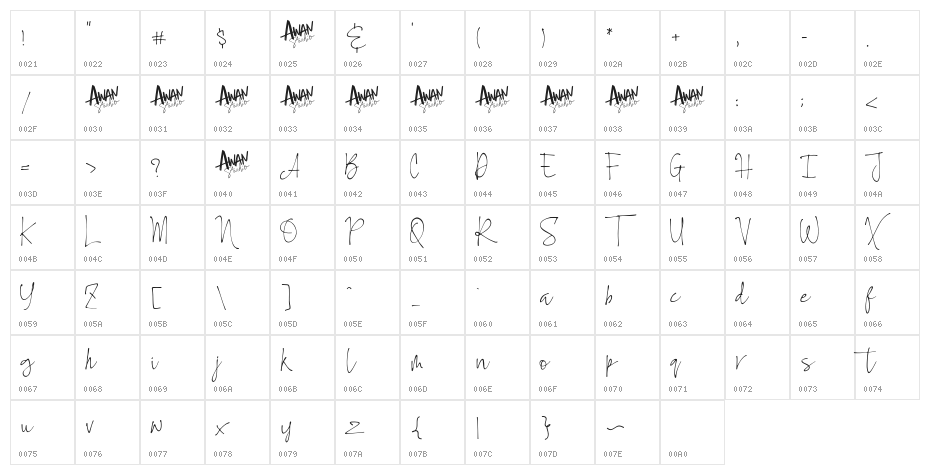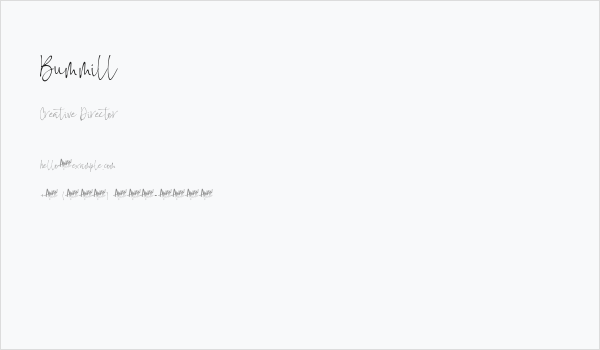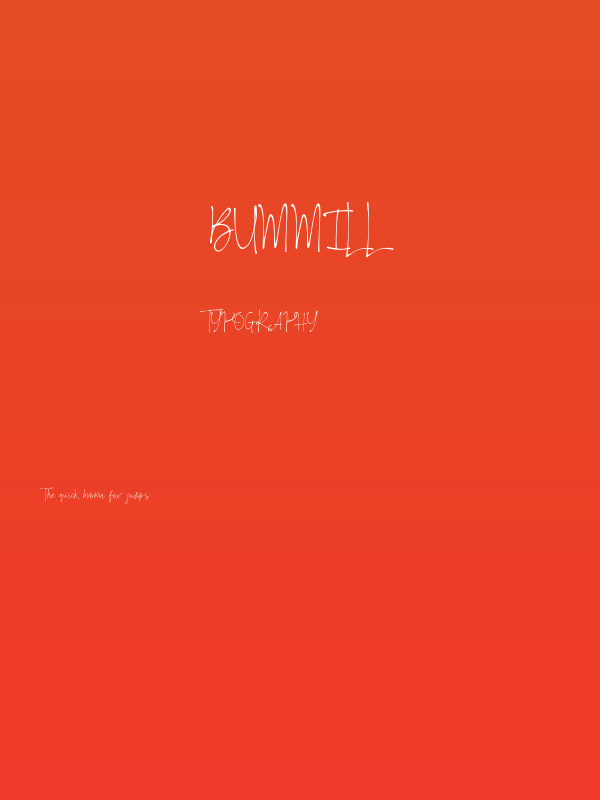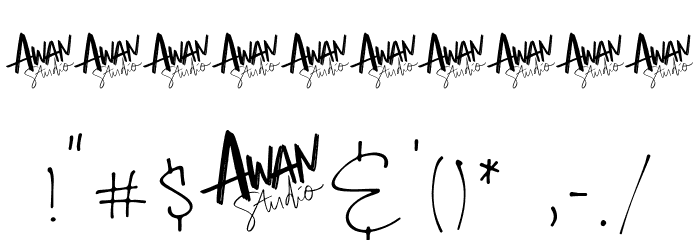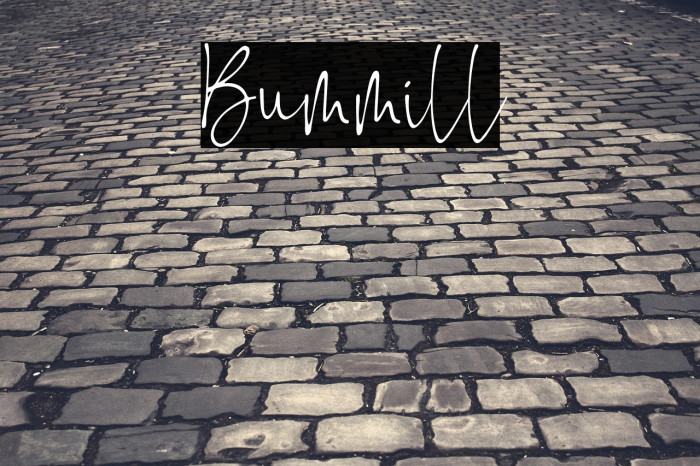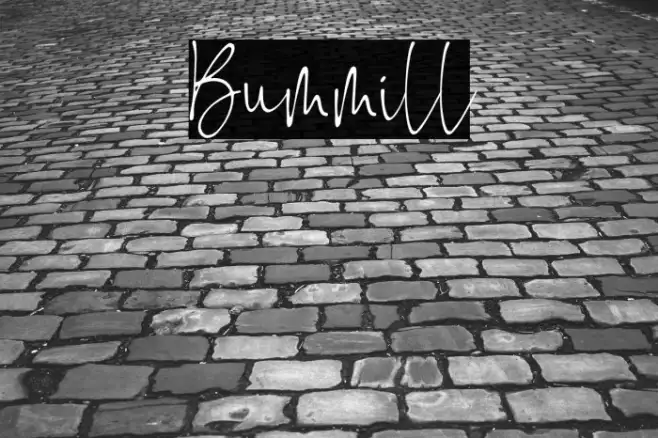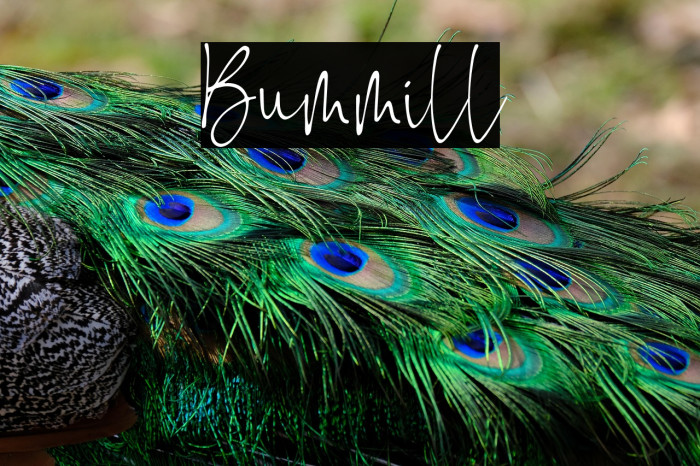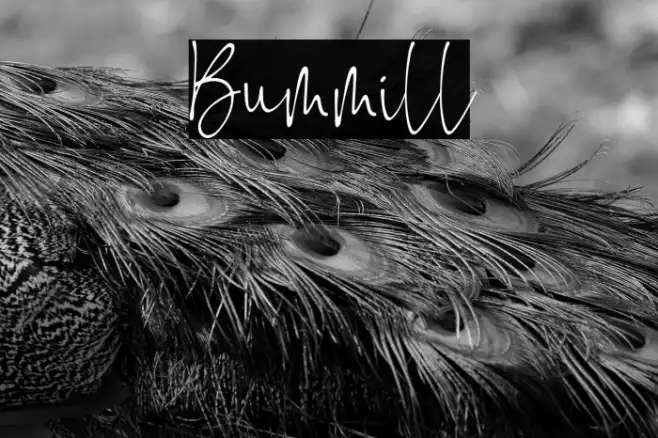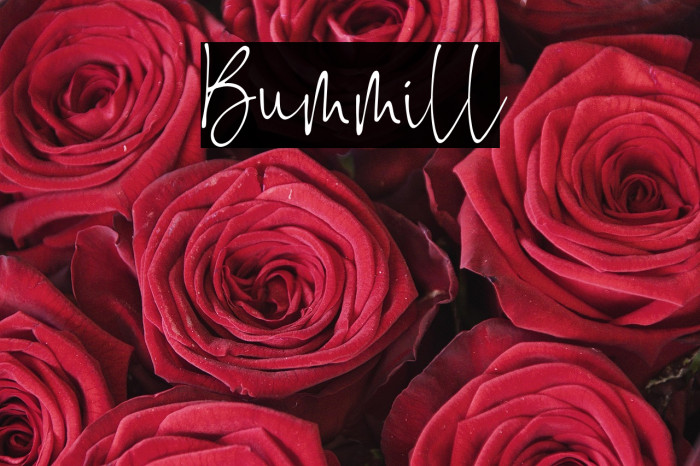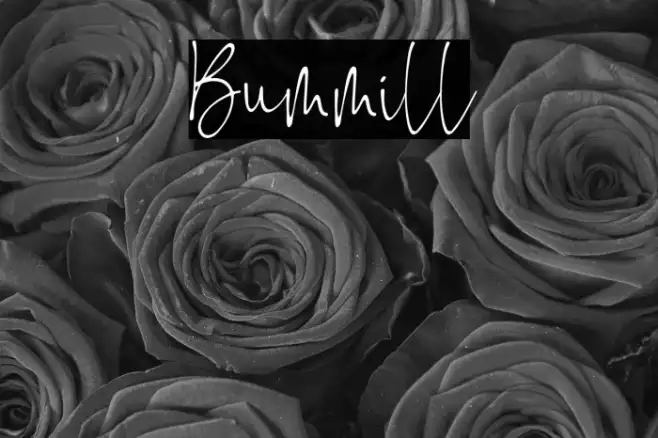
Bummill Font
Bummill Description
This font features a playful and casual handwritten style, characterized by its loose and flowing strokes. The uppercase letters are tall and slightly irregular, giving a sense of spontaneity and creativity. The lowercase letters maintain the same whimsical feel, with some letters extending below the baseline, adding to the dynamic appearance. The numerals and special characters are consistent with the overall style, maintaining the same lively and informal aesthetic. This font is perfect for projects that require a personal touch or a sense of informality.
| Proposed Projects | Ideal for greeting cards, personal branding, social media graphics, and informal invitations. |